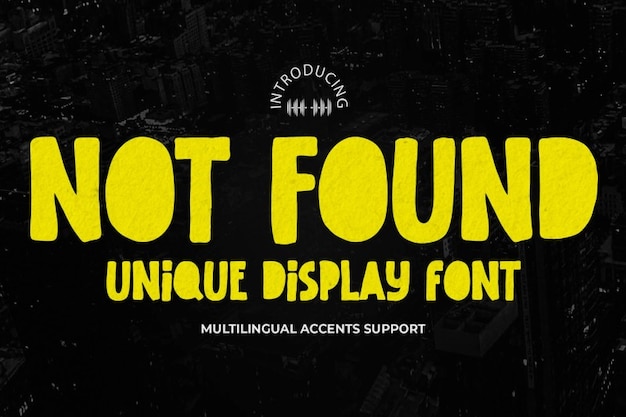
Not Found Font
Gasstype
Not Found is a playful font. Its rounded and irregular design will add a fun look to your projects, perfect for all types of projects, especially your children-related creations if you use it on backgrounds or cards. Download it now and start creating!